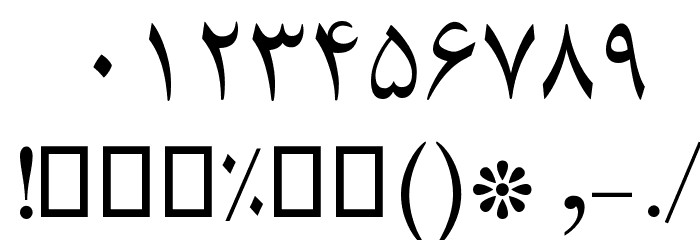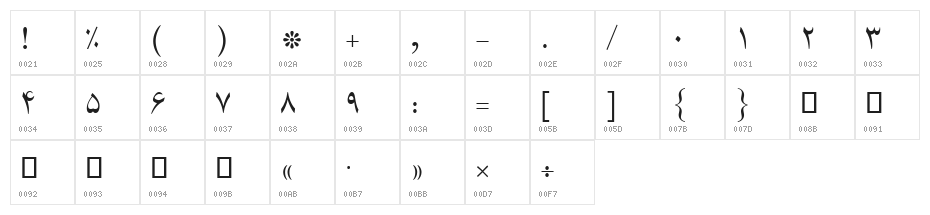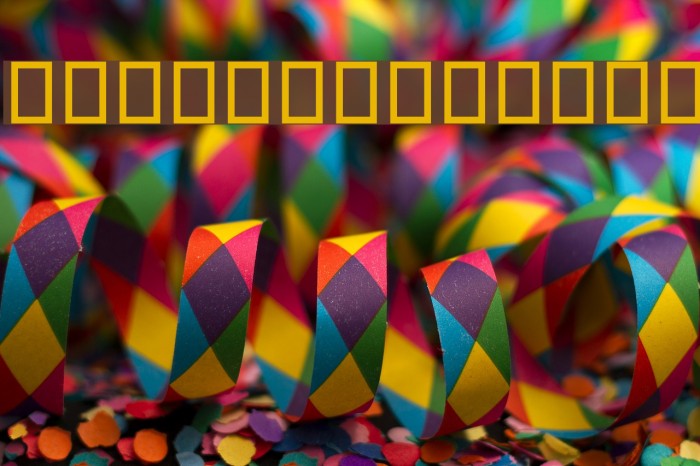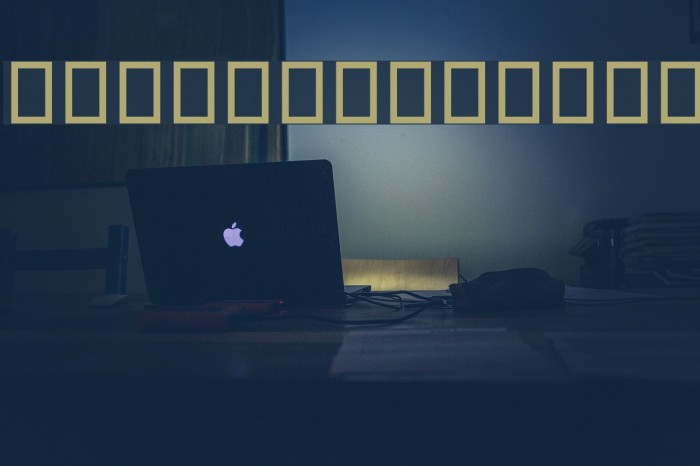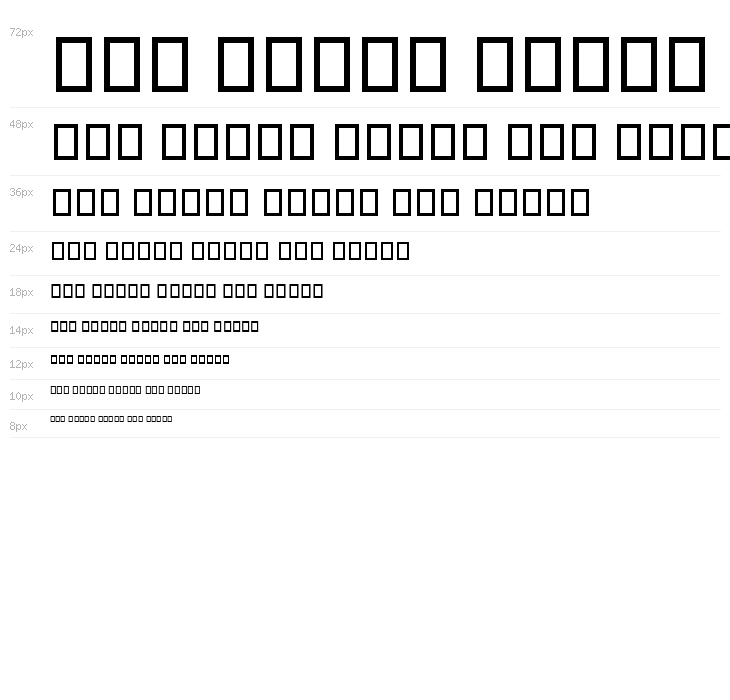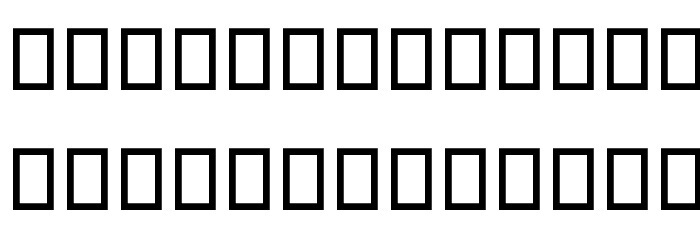
Yaas Font
Yaas Description
This font features a unique and artistic design with a calligraphic style. The characters are elegantly curved, showcasing a fluid and dynamic form that resembles traditional handwriting. The numerals are particularly distinctive, with each number displaying a graceful, flowing line that adds a touch of sophistication. The special characters, such as punctuation marks and symbols, maintain the same artistic flair, ensuring consistency throughout the font. This font is ideal for projects that require a touch of elegance and creativity, making it suitable for invitations, greeting cards, and artistic designs.
| Use Case | Artistic designs, Invitations, Greeting cards |
| Proposed Projects | Ideal for invitations, greeting cards, artistic designs, and creative projects. |